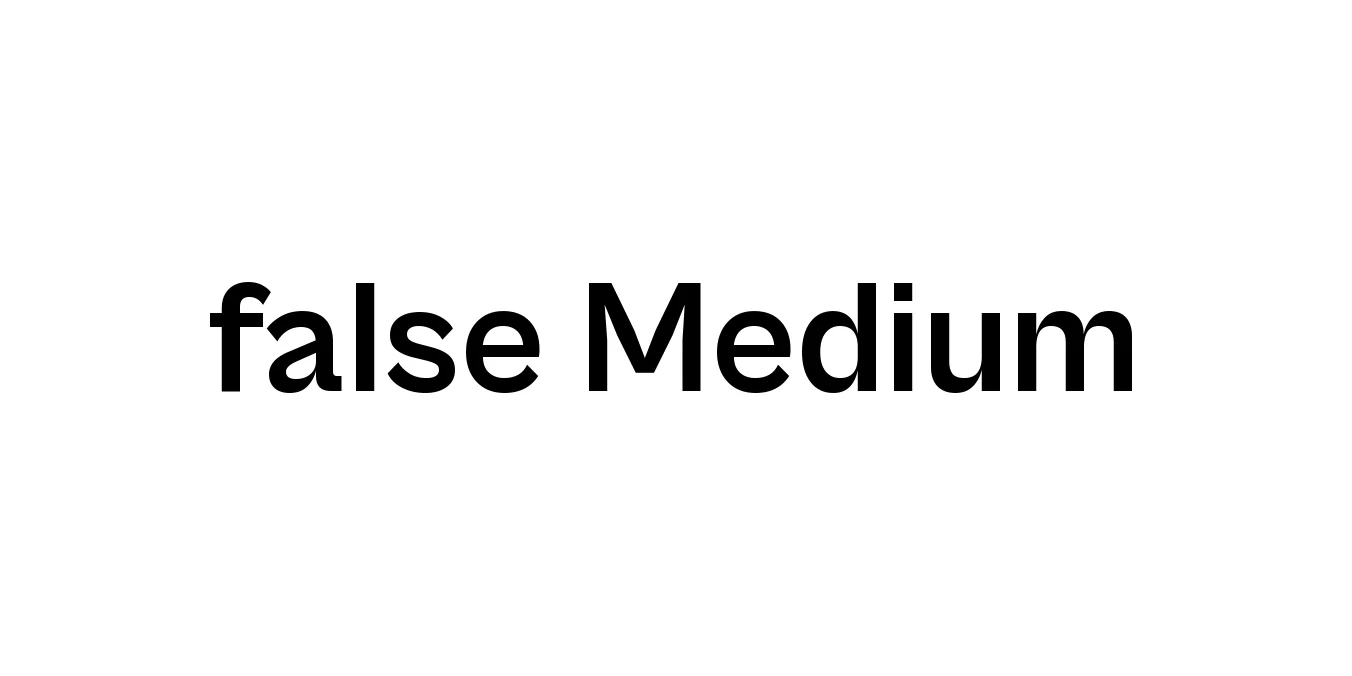
false Medium
Designed by Piotr Łapa
False Medium is a contemporary sans-serif typeface characterized by its geometric foundations and clean, minimalist aesthetic. Developed with a focus on high legibility within modern digital environments, the font features balanced proportions and a distinct personality that bridges the gap between technical precision and humanistic warmth.
The Medium weight of this family is particularly versatile, offering enough visual weight for subheadings and emphasis while maintaining excellent readability for shorter body text blocks. Its sharp terminals and consistent stroke widths make it a popular choice for designers looking to convey a sense of professionalism and forward-thinking innovation in branding, corporate identity, and UI/UX design projects.
Perfect for modern landing pages and interface navigation components.
Excellent for tech-focused logos and professional corporate identities.
Optimized for legibility in high-density mobile user interfaces.
Great for clean, professional advertising banners and digital social media assets.